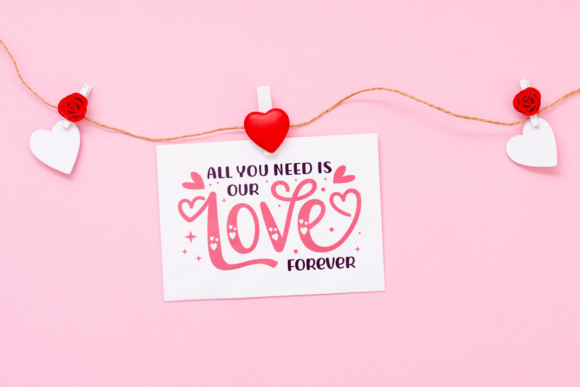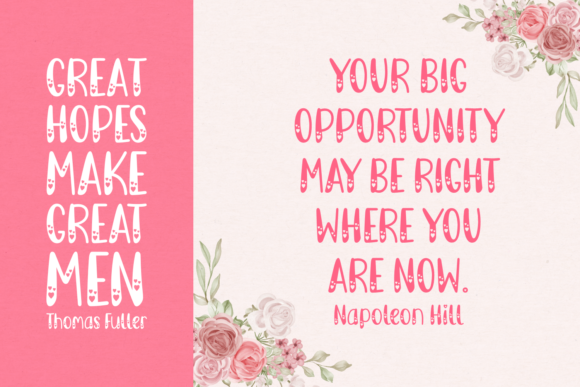
Introduction to Love Brittney Font Font
Fonts play a crucial role in design, and the Love Brittney Font font is a typeface that brings both character and versatility to any project. Whether you’re working on a branding project, a website, or a print design, the Love Brittney Font font offers a unique style that can elevate your work.
Love Brittney is a chic and romantic decorative font.
It features tiny hearts on each elements This font is PUA encoded which means you can access all of the glyphs and swashes with ease.
Key Features of Love Brittney Font Font
The Love Brittney Font font is more than just a typeface – it’s a design tool that helps you communicate your message with style and clarity. Its unique character set and versatile design make it suitable for a wide range of applications, from elegant invitations to bold headlines.
With its carefully crafted letterforms and balanced proportions, the Love Brittney Font font ensures readability and visual appeal across all mediums.
The Love Brittney Font font stands out with its unique design, exceptional readability, and versatility across various design applications.